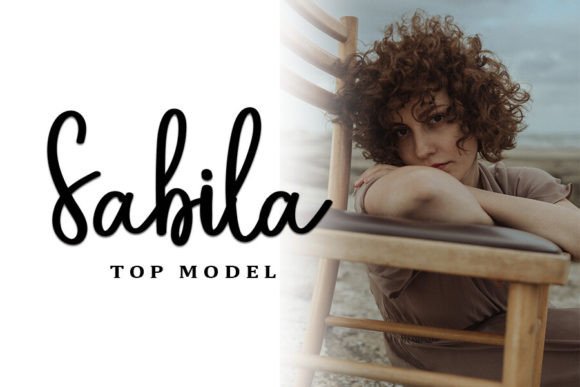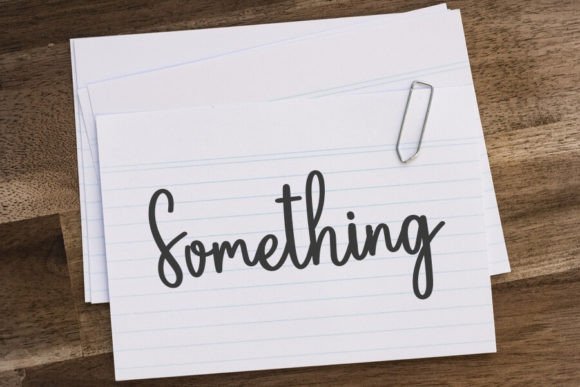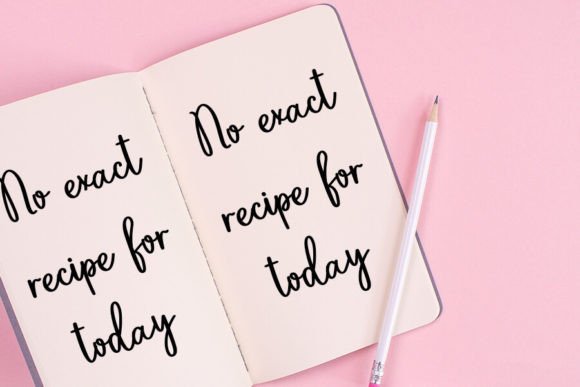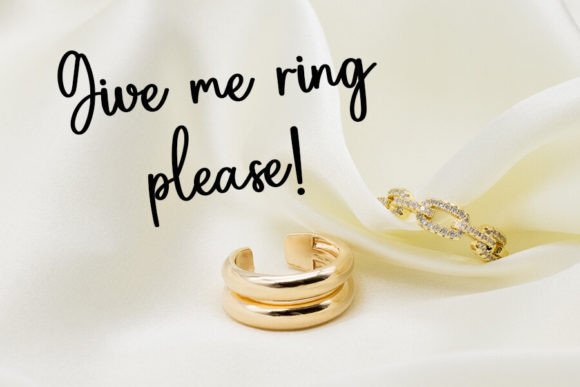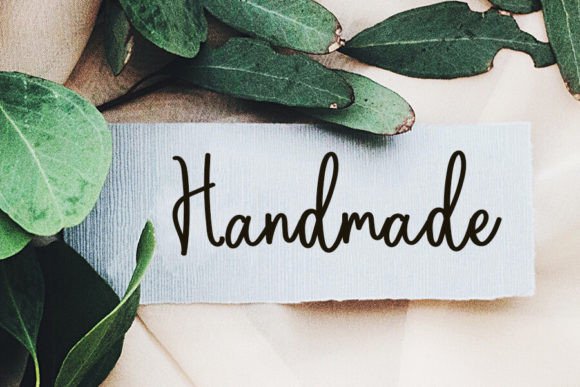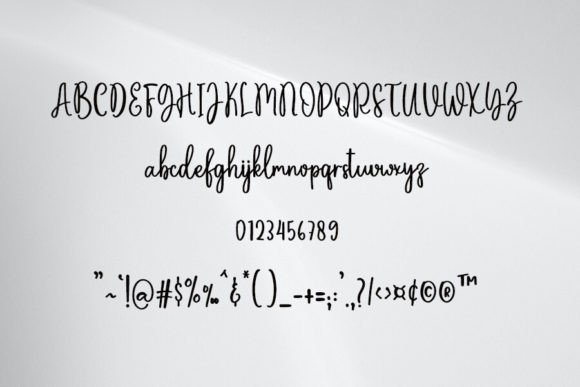
That’s why we’re excited to introduce you to the Happy Birthday Font, a stylish handwritten font that’s sure to elevate your designs. With its contemporary atmosphere and impeccable form, this font is perfect for adding a touch of elegance to your projects. Whether you’re creating a birthday card, invitation, or social media post, the Happy Birthday Font is the perfect choice to make your designs stand out.
What makes this font truly valuable is its PUA encoding, which allows you to access all of its amazing glyphs and ligatures with ease. This means you can get creative with your designs without any hassle, making it a must-have for any designer looking to add a personal touch to their work.
Happy Birthday Font Key Features
- Font Style: A playful, cursive script font designed to resemble handwritten text.
- Font Size: Available in a range of sizes, from 24px to 72px, making it suitable for various applications.
- Resolution: Optimized for high-resolution displays, ensuring crisp and clear text at 300 DPI and above.
- Unique Characteristics: Includes alternate characters, swashes, and ligatures to add a personal touch to birthday messages.
- Language Support: Supports a wide range of languages, including English, Spanish, French, German, and many more.
Happy Birthday Font Review
As a designer, I was excited to dive into the “Happy Birthday Font” and see what it had to offer. Overall, I found it to be a cute and playful font that’s perfect for birthday-themed designs.
- ✨ The font is highly customizable, allowing you to adjust the size, color, and style to fit your design needs.
- ✨ It includes a range of birthday-themed graphics and icons that can be easily integrated into your design.
- ✨ The font is well-suited for digital and print designs, making it a versatile choice for a variety of projects.
- ⚠️ The font may be a bit too cutesy for more serious or formal designs, so be sure to use it in a context where it fits.
- ⚠️ Some of the graphics and icons may be a bit too large or pixelated at certain sizes, so be sure to test them thoroughly.
Overall, I think the “Happy Birthday Font” is a great choice for designers who want to add a fun and playful touch to their birthday-themed designs. With a little creativity and customization, it can be a real showstopper!
Tips for Getting the Most Out of the Happy Birthday Font
For a more personalized look, combine the Happy Birthday Font with custom illustrations or graphics. Experiment with different font sizes and colors to create a visually appealing design.
The Happy Birthday Font is ideal for birthday invitations, party decorations, and social media posts. It can also be used for custom birthday cards, photo albums, and other celebratory projects.
Alternatives to Happy Birthday Font for Designers
Happy Birthday Font is a popular font for birthday designs, but sometimes designers may need alternatives to add some variety to their work. Here are a few options:
Great Vibes Font is a modern, elegant script font perfect for creating a sophisticated birthday design. It’s ideal for use in high-end event invitations, wedding invitations, or any other design where a touch of luxury is desired. Compared to Happy Birthday Font, Great Vibes Font has a more refined and sophisticated look.
Dancing Script Font is a beautiful, handwritten font that’s perfect for creating a playful and whimsical birthday design. It’s ideal for use in children’s party invitations, birthday cards, or any other design where a touch of playfulness is desired. Compared to Happy Birthday Font, Dancing Script Font has a more casual and informal look.
Lobster Font is a fun, casual font that’s perfect for creating a beachy or vintage-inspired birthday design. It’s ideal for use in summer-themed party invitations, beach party invitations, or any other design where a touch of fun and relaxation is desired. Compared to Happy Birthday Font, Lobster Font has a more relaxed and casual look.